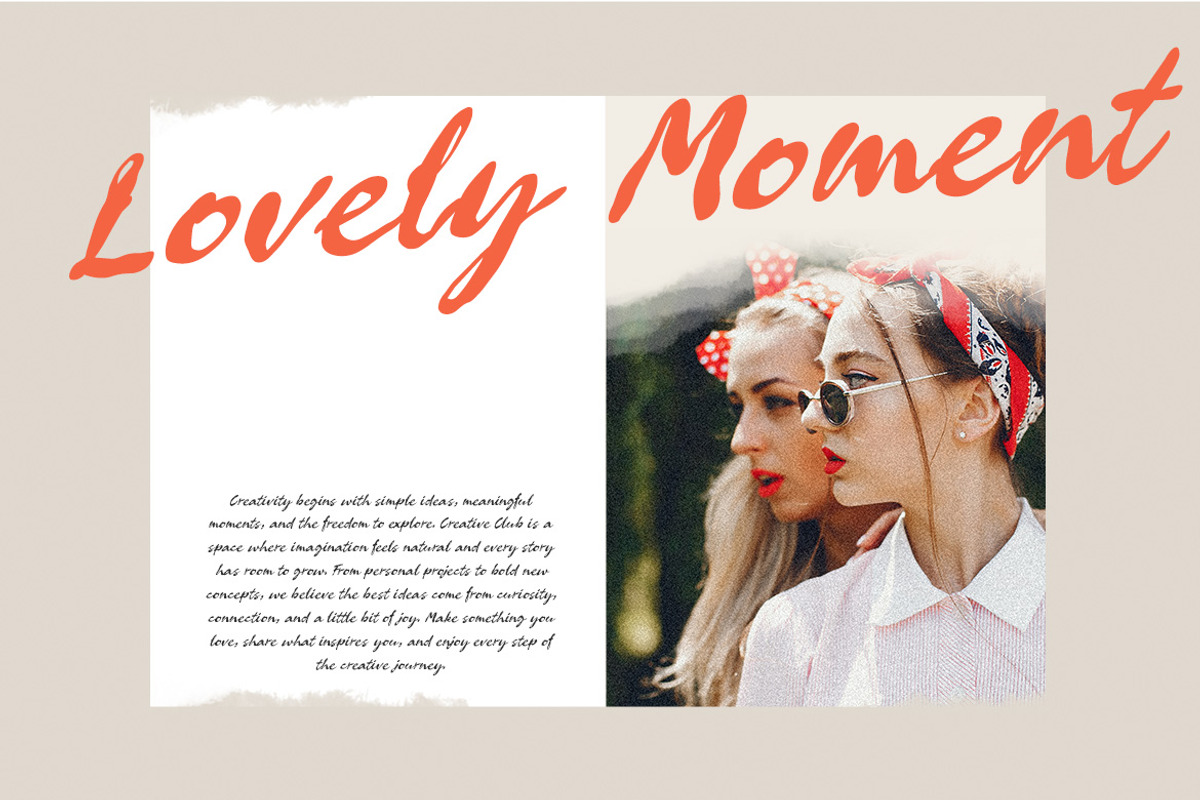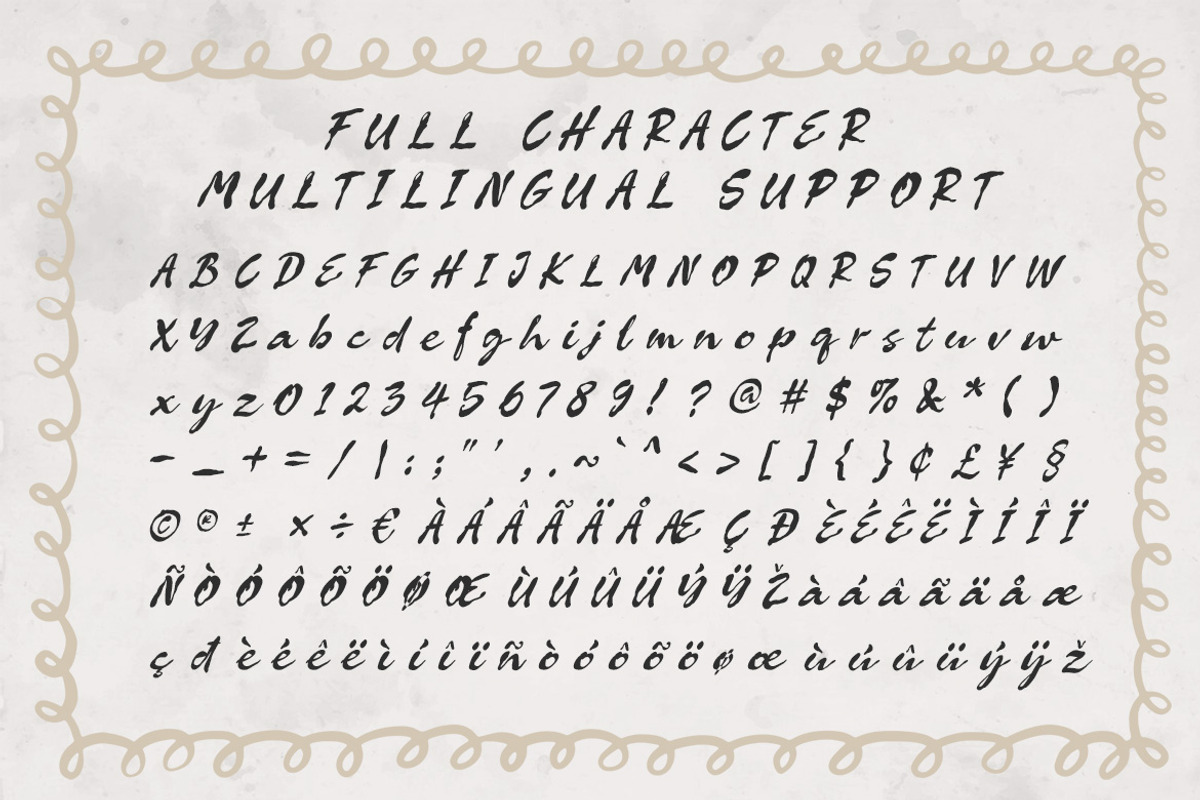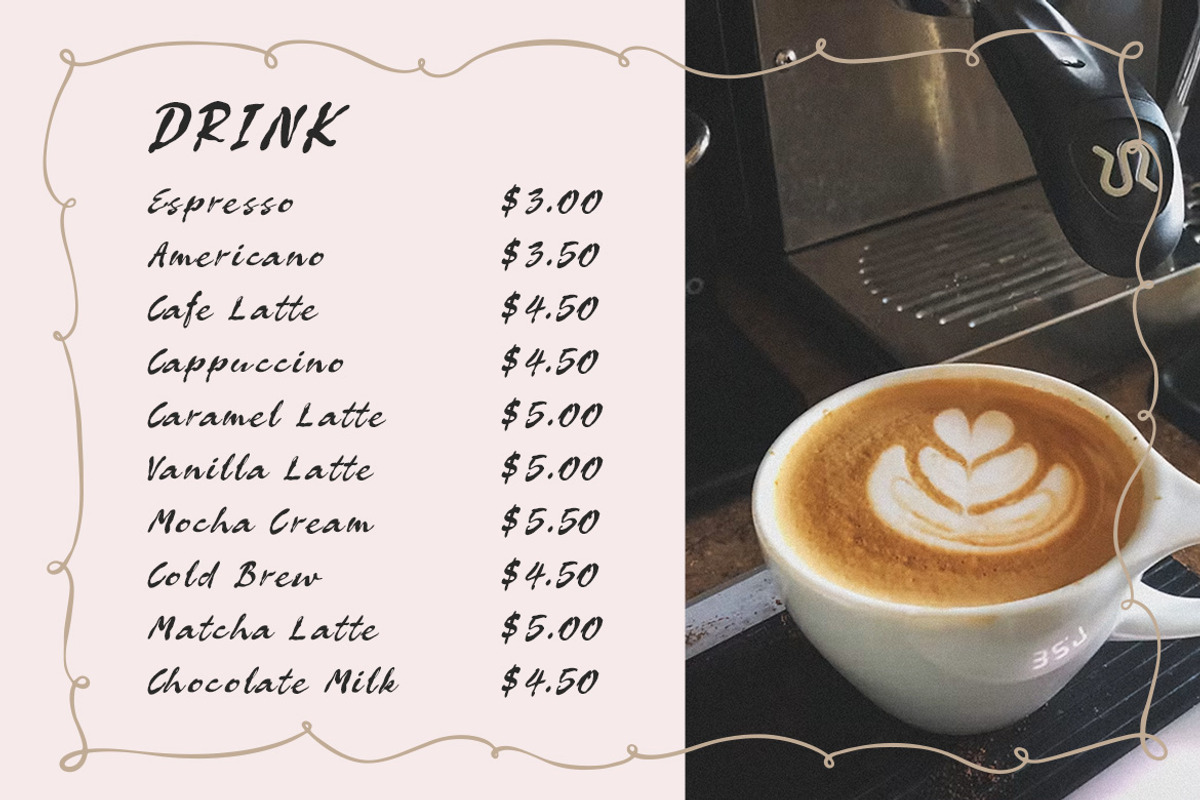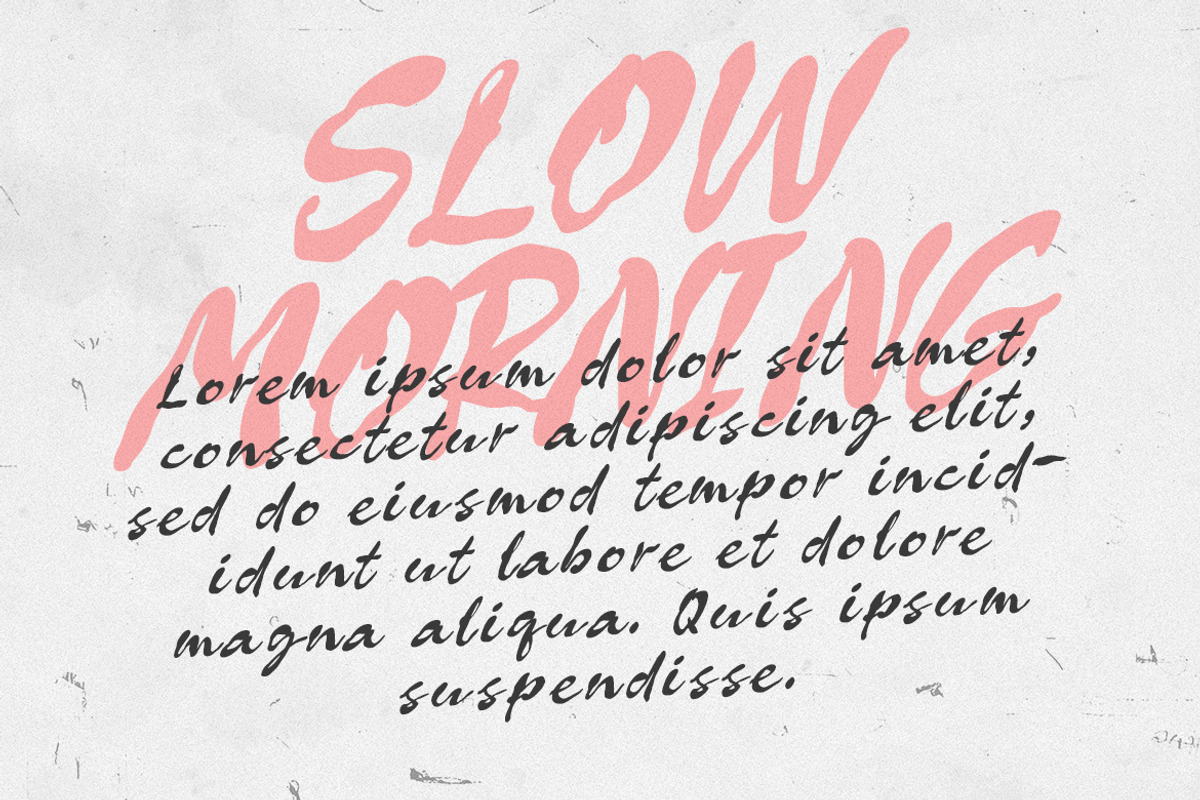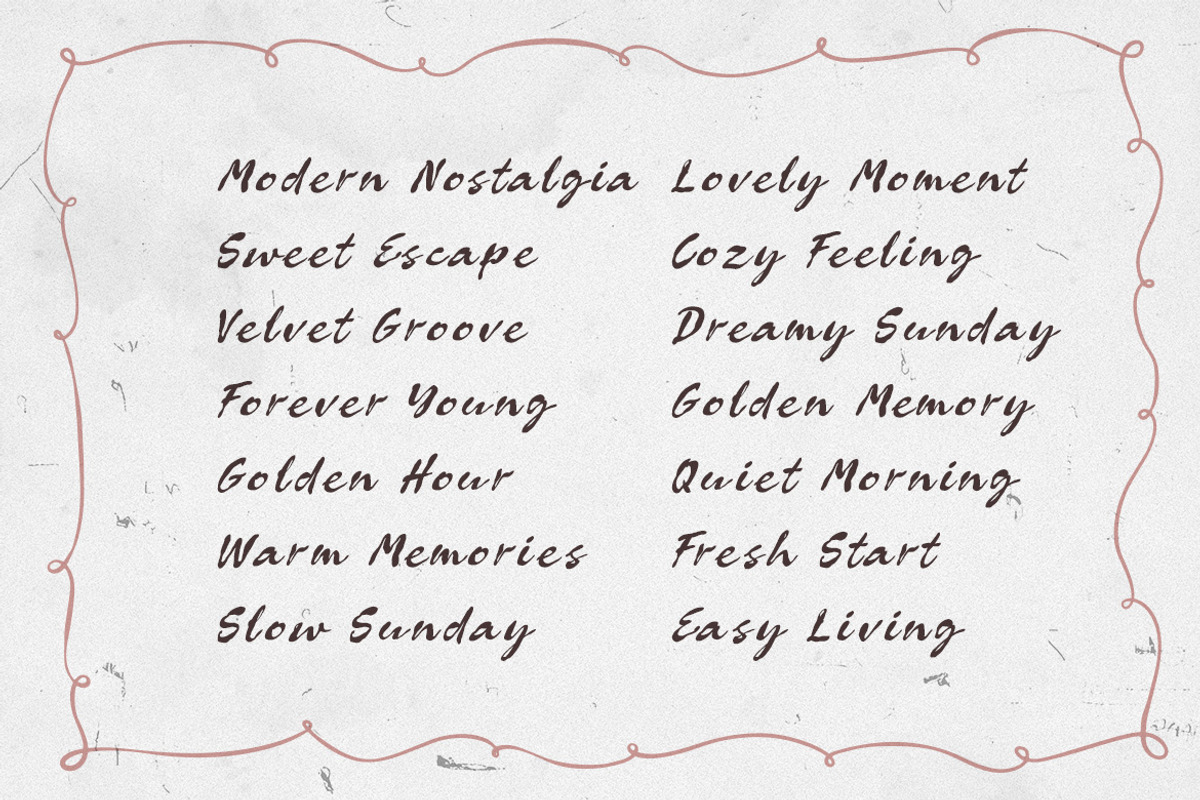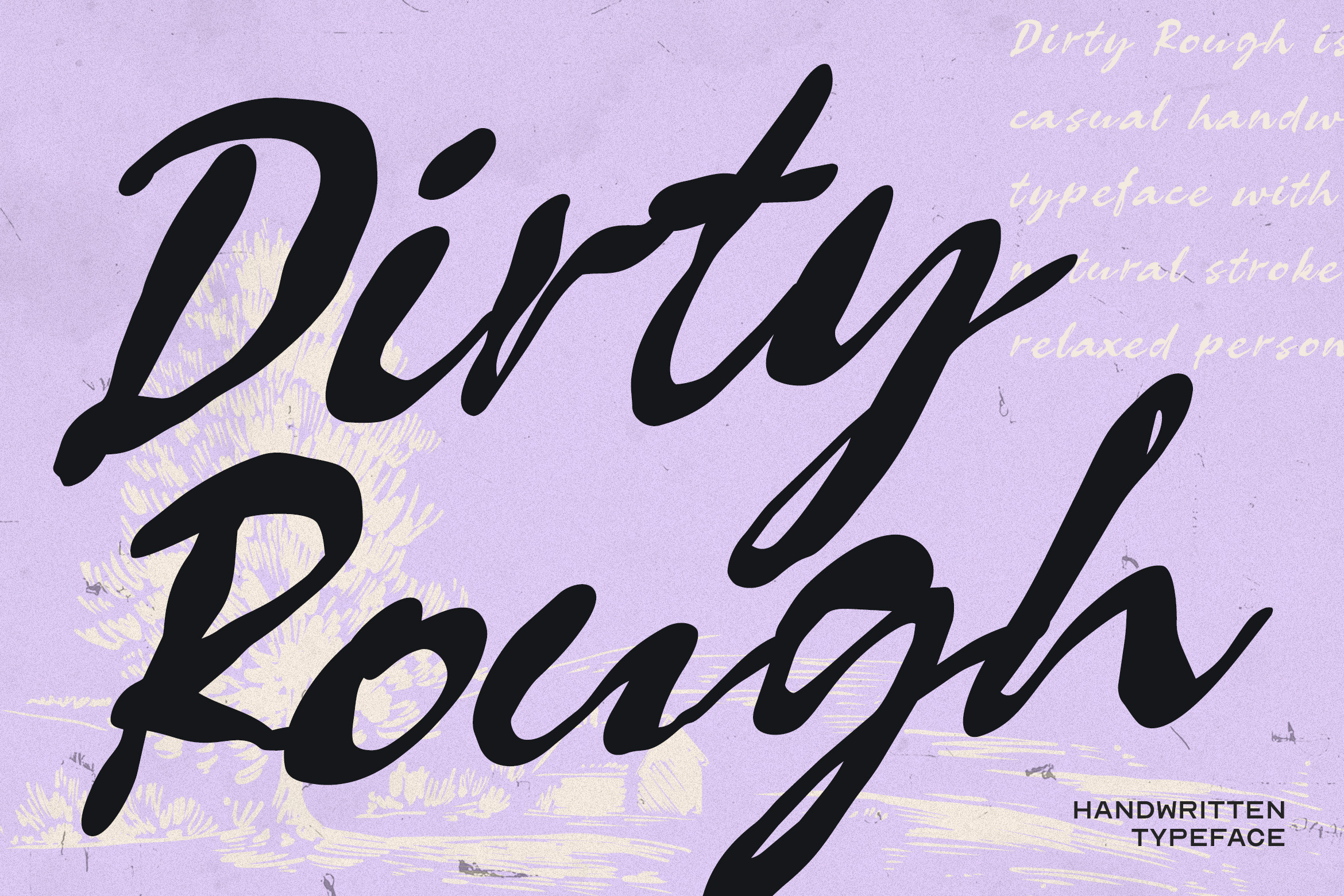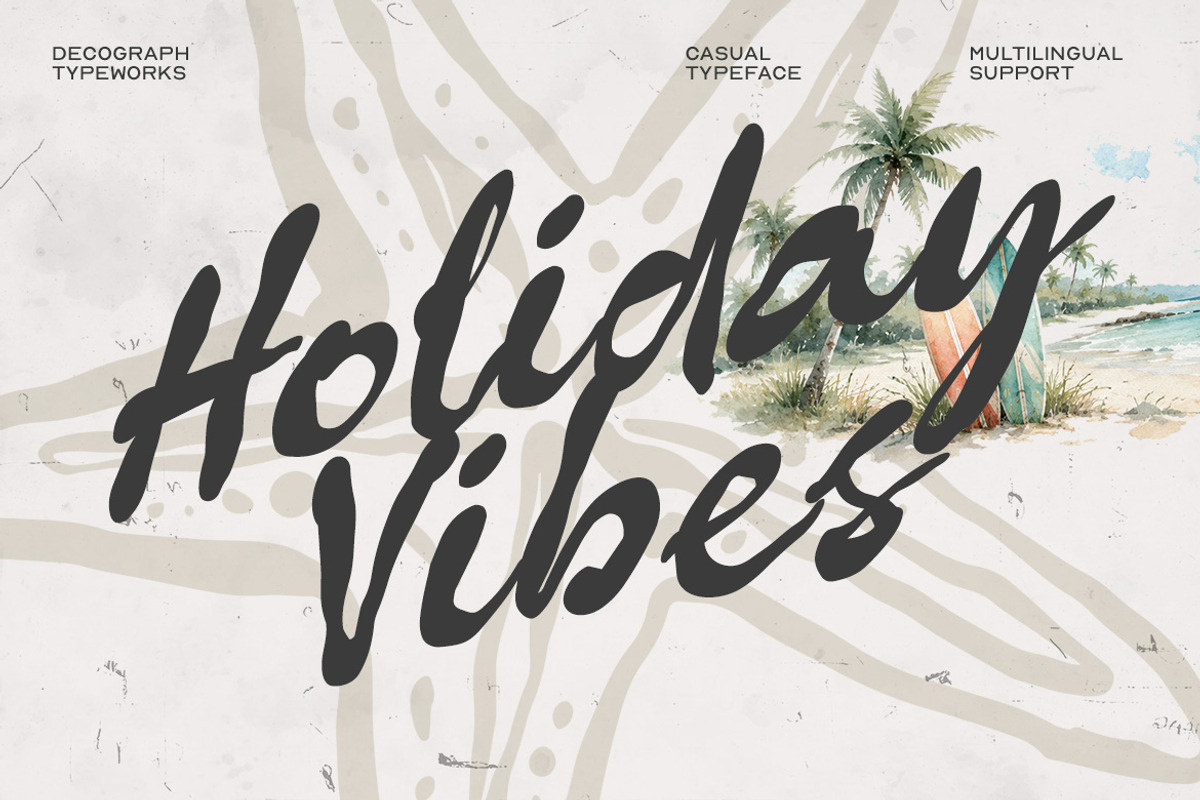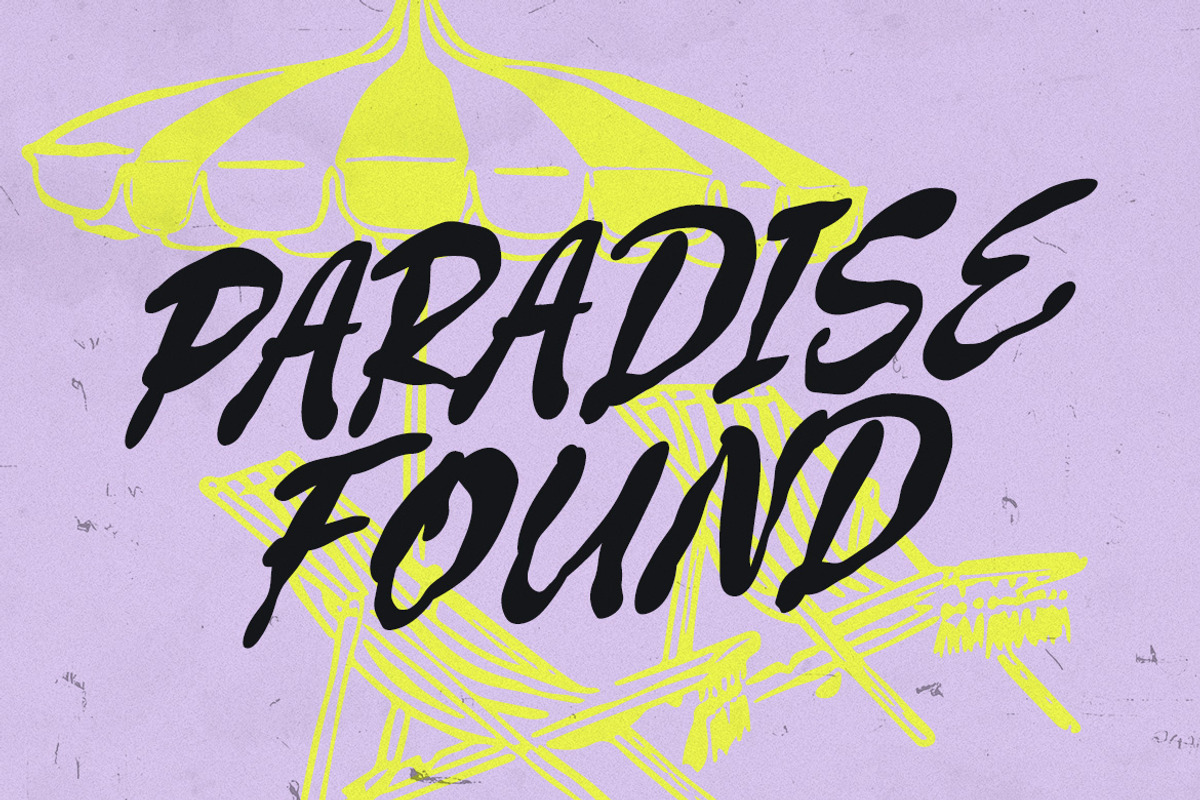
Dirty Rough – Bold Handwritten Font
Dirty Rough is a bold handwritten script typeface that combines energetic brush strokes with sweeping, loosely connected letterforms, featuring strong weight variation, extended curves, and expressive terminals that create a dynamic handwritten presence. Its broad gestures and irregular construction give the typography a spontaneous rhythm while maintaining a confident silhouette at display sizes. Designed for branding, logo design, posters, album covers, fashion graphics, packaging, editorial headlines, and merchandise, Dirty Rough brings a distinctive personality to contemporary compositions—delivering a visual tone that feels expressive, energetic, artistic, and confidently handmade.
Smooth Kerning